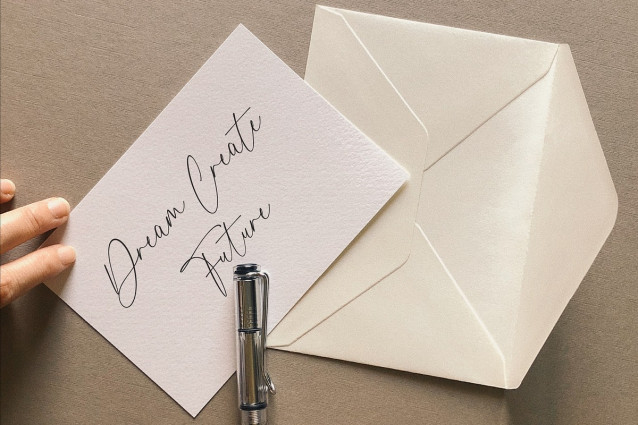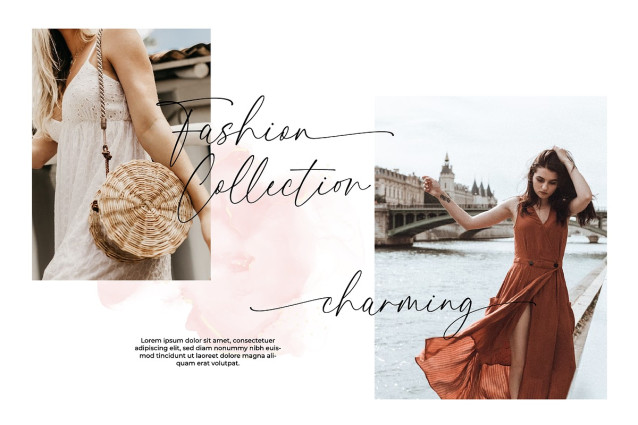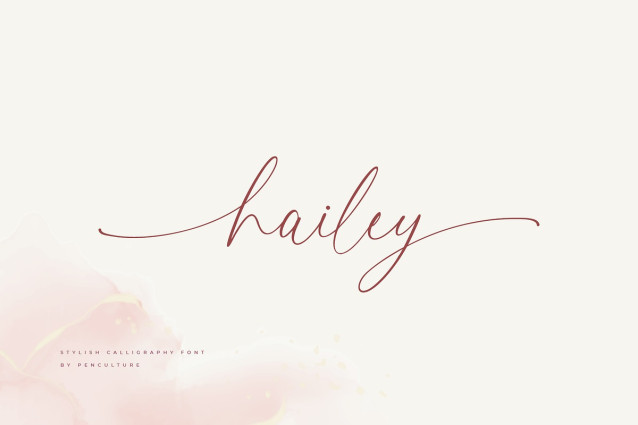
Hailey Script Typeface
Hailey Script Typeface is a modern calligraphy font that perfect for wedding invitation, branding, logo and many more. this font come with fully uppercase and lowercase, number and punctuation also has beautiful beginning and ending swashes.